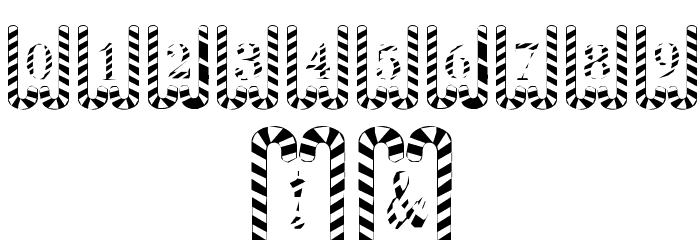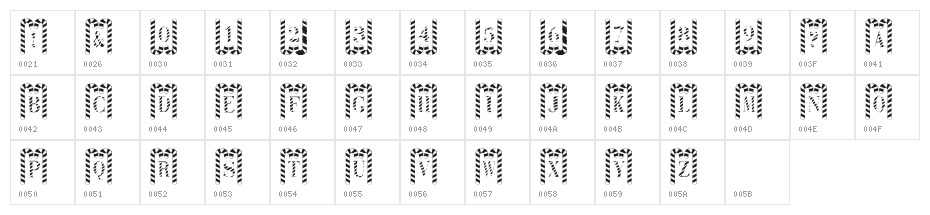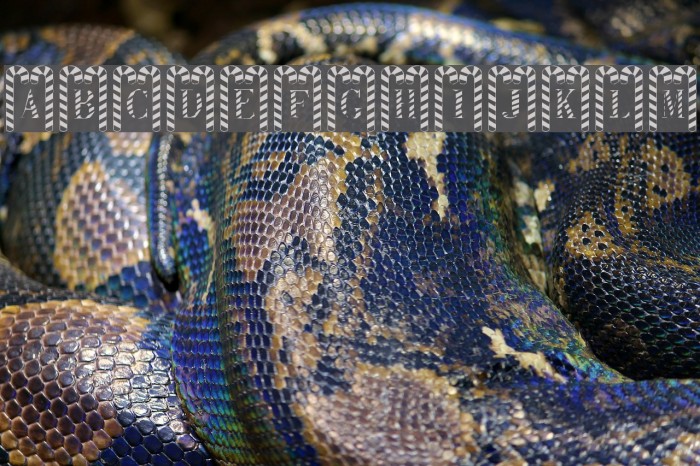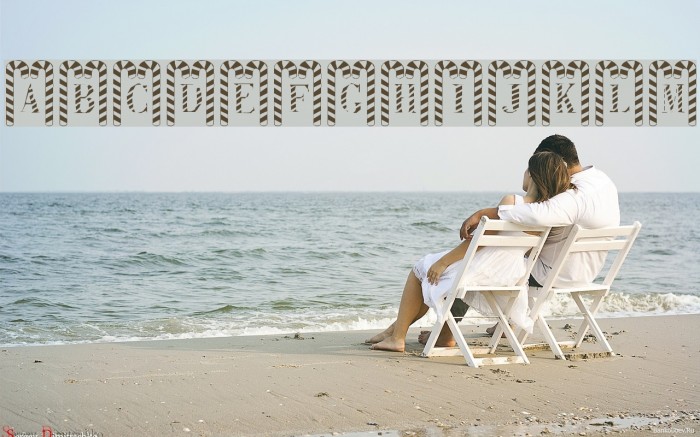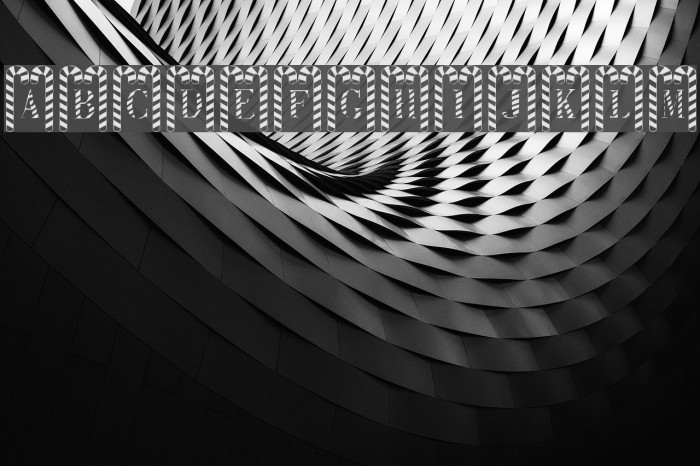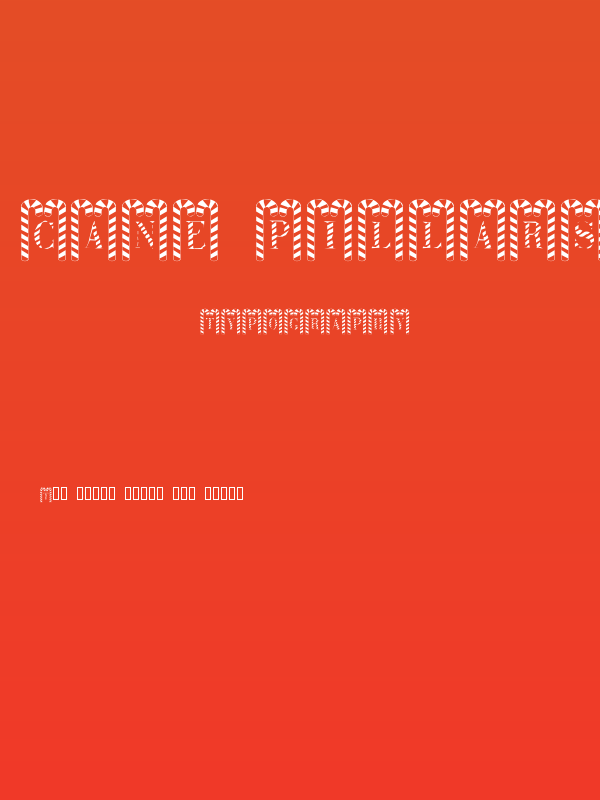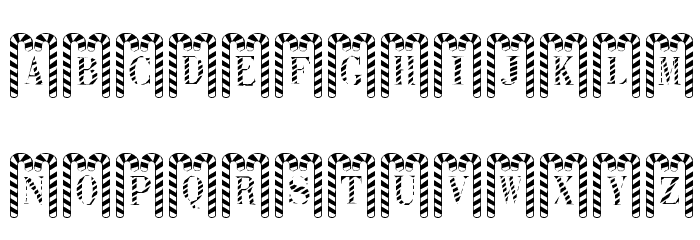
Cane Pillars Font
Cane Pillars Description
This font features a playful and festive design, reminiscent of candy canes with its striped pattern. Each character is constructed with bold, vertical stripes that alternate between black and white, creating a visually striking effect. The letters are uniform in width, giving a consistent and structured appearance. The font's unique style makes it ideal for holiday-themed projects, adding a touch of whimsy and charm. Its decorative nature is perfect for capturing attention and conveying a sense of fun and celebration.
| Proposed Projects | Ideal for holiday cards, festive banners, party invitations, and playful branding. |